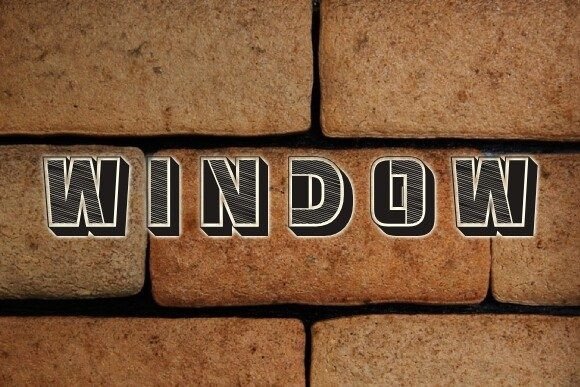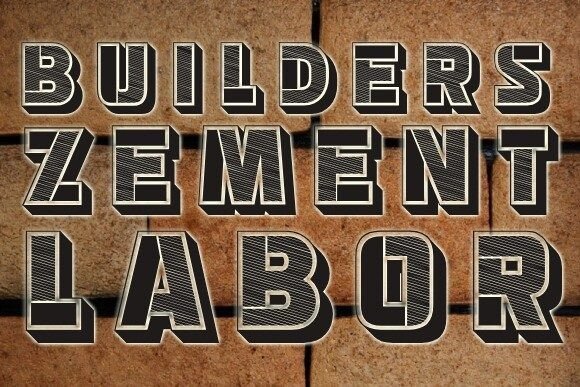
The Ultimate Game-Changer for Your Designs: Abstract Blocks Font
I’ll never forget the time I was working on a project for a client who needed a bold, eye-catching font to make their poster stand out. I had spent hours scouring the internet for the perfect typeface, but nothing seemed quite right. That was until I stumbled upon Abstract Blocks Font. This awesome 3D typeface has been a game-changer for my designs, and I’m excited to share my experience with you.
An Honest Review of Abstract Blocks Font
So, what makes Abstract Blocks Font so special? Let’s dive into the good stuff and a few quirks I’ve discovered.
- ✨ Stunning 3D effect: This font adds a level of depth and visual interest to any design.
- ✅ Highly versatile: From posters and flyers to t-shirts and more, Abstract Blocks Font fits seamlessly into any project.
- 💥 Attention-grabbing: Let’s face it – this font demands attention and makes your design stand out from the crowd.
While Abstract Blocks Font is an amazing addition to any design, there are a few things to keep in mind:
- 🤔 Legibility at small sizes: Like many 3D fonts, Abstract Blocks can become tricky to read when scaled down. Make sure to test it at different sizes to ensure it works for your project.
- ⚠️ Overuse: With a font this bold, it’s easy to overuse it. Balance is key to making your design pop without overwhelming the viewer.
The Backstory Behind Abstract Blocks Font
The story behind Abstract Blocks Font is one of creativity and vision. Designed with the modern designer in mind, this font was crafted to push boundaries and challenge traditional typography. The designer aimed to create a typeface that not only stands out but also invites creativity and experimentation.
Q: Is Abstract Blocks Font suitable for body text?
A: While Abstract Blocks Font is stunning, it’s primarily designed for headlines and short text sections due to its 3D effect and potential legibility issues at smaller sizes.
Q: Does Abstract Blocks Font include any OpenType features?
A: Yes, Abstract Blocks Font likely includes OpenType features such as stylistic alternates and glyphs, adding to its versatility.